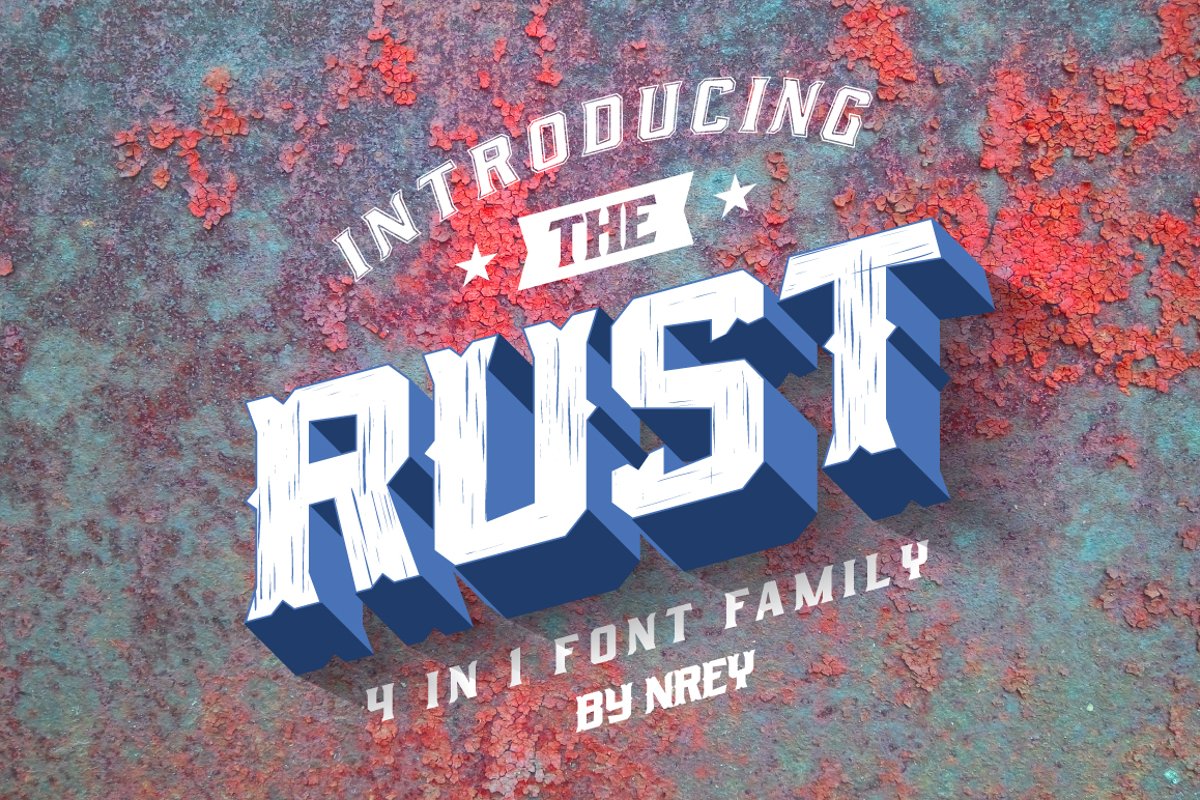
Rust
Hi, Friends. Let me introduce my new typeface family - the RUST.
It is display serif font, that gives you strong and bold typography, inspired by team sport.
Font family include 4 typefaces:
- Rust
- Rust Spurs
- Rust Scratch
- Rust Sport
You may combine all RUST styles as you want.